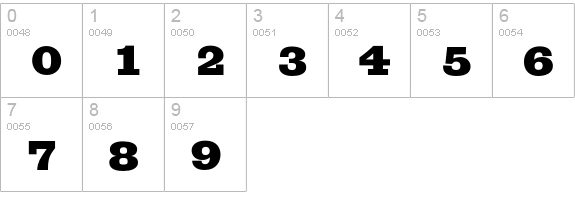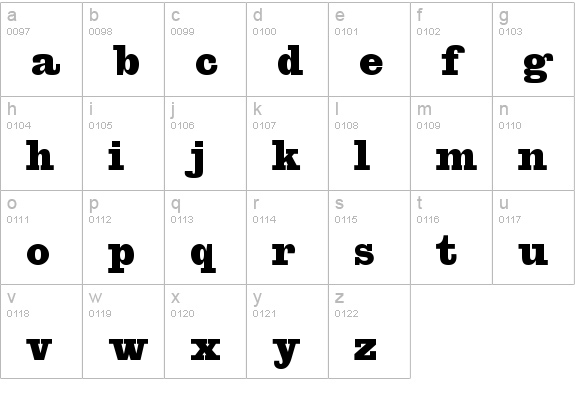
Bergamo Font Details
Bergamo font is a modern and elegant typeface that exudes sophistication and style. With its sleek lines and timeless appeal, Bergamo is the perfect choice for a wide range of design projects, from branding to editorial design. This versatile font is suitable for both headings and body text, making it a go-to choice for designers looking to elevate their work. What's even better is that Bergamo font is available for free download at FontsMarket.com. This means you can easily access this premium quality font without breaking the bank. Whether you're working on a personal project or a professional assignment, Bergamo font offers the perfect balance of style and functionality. Download it today and take your design projects to the next level with Bergamo font.